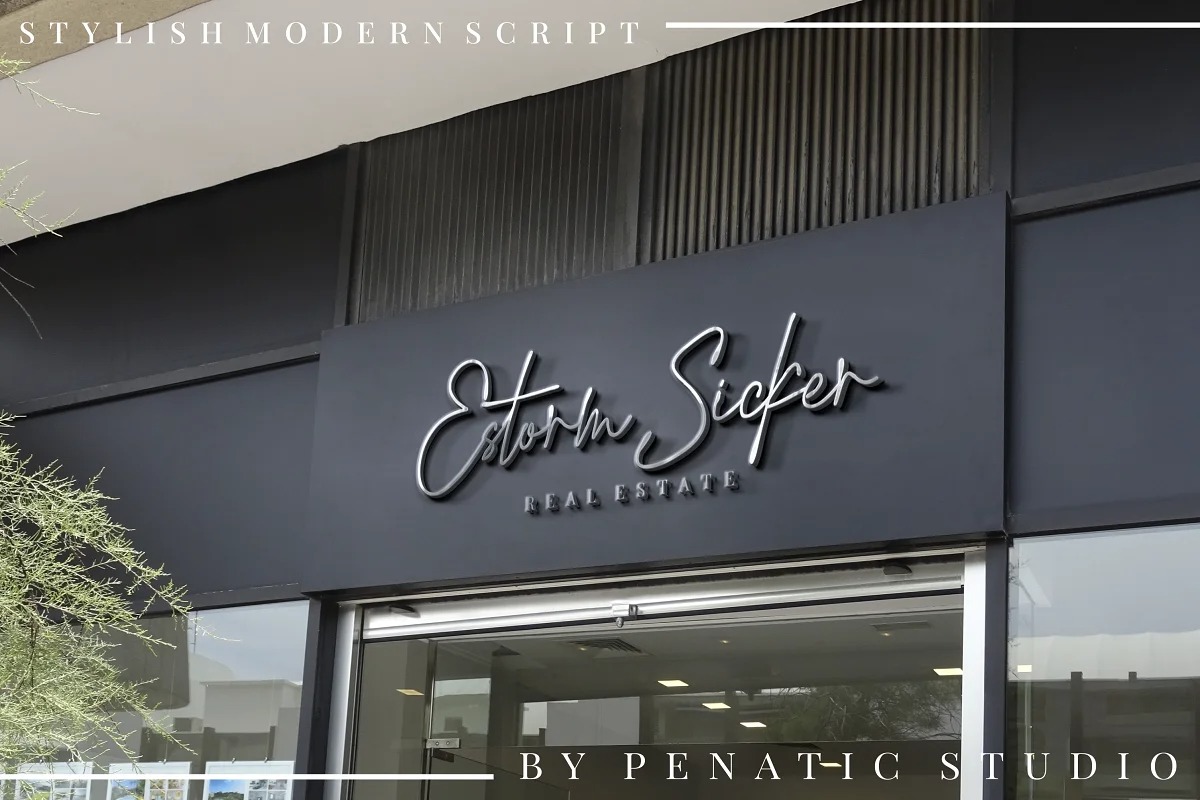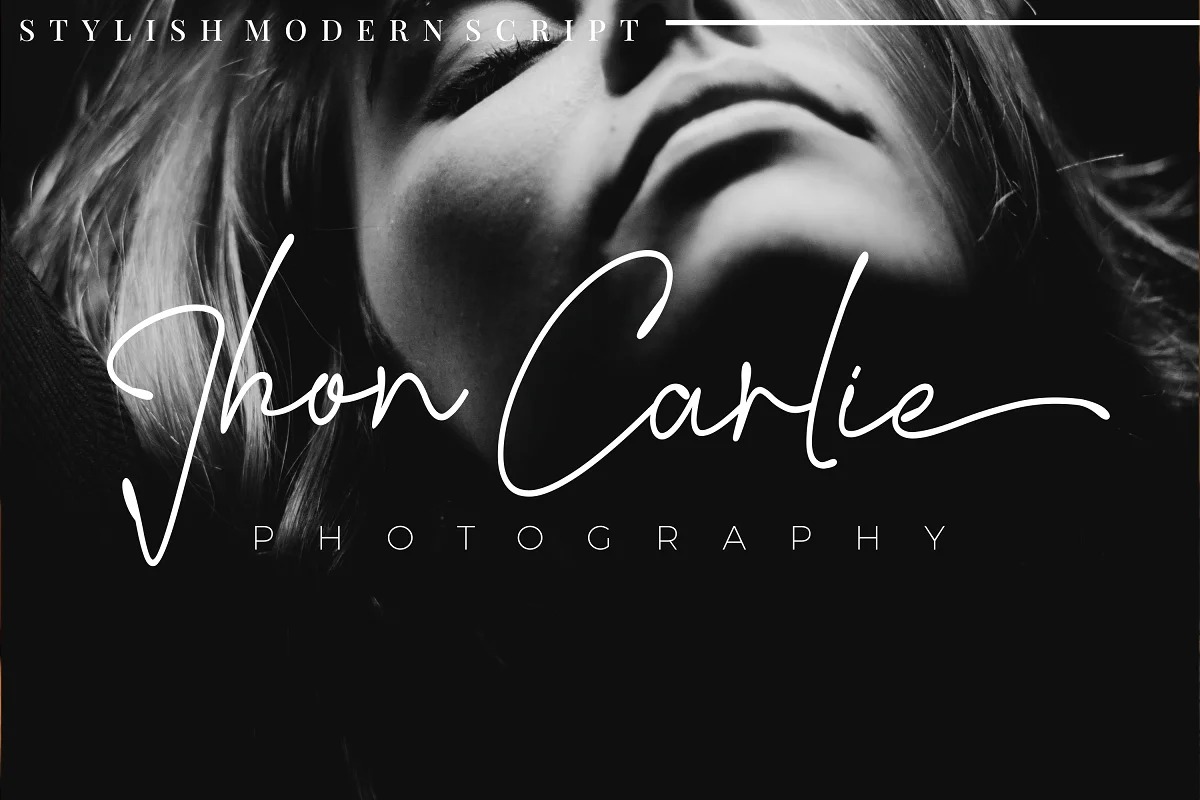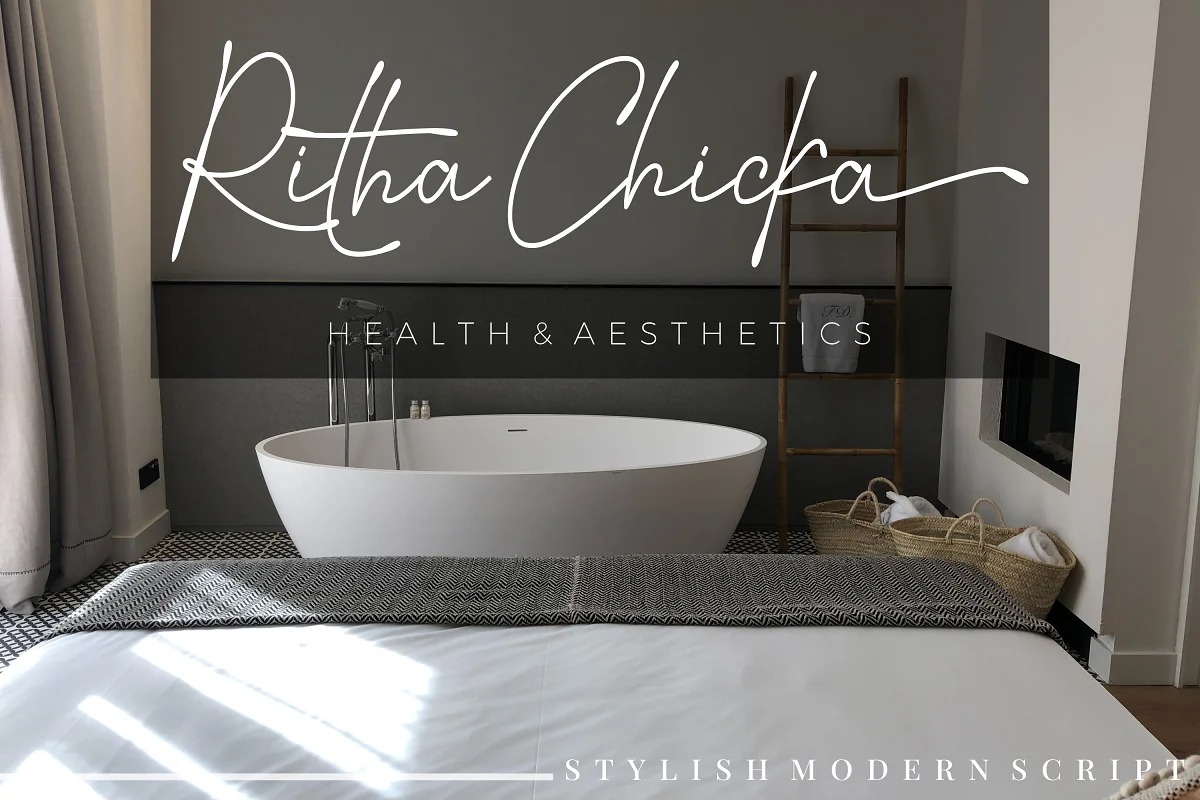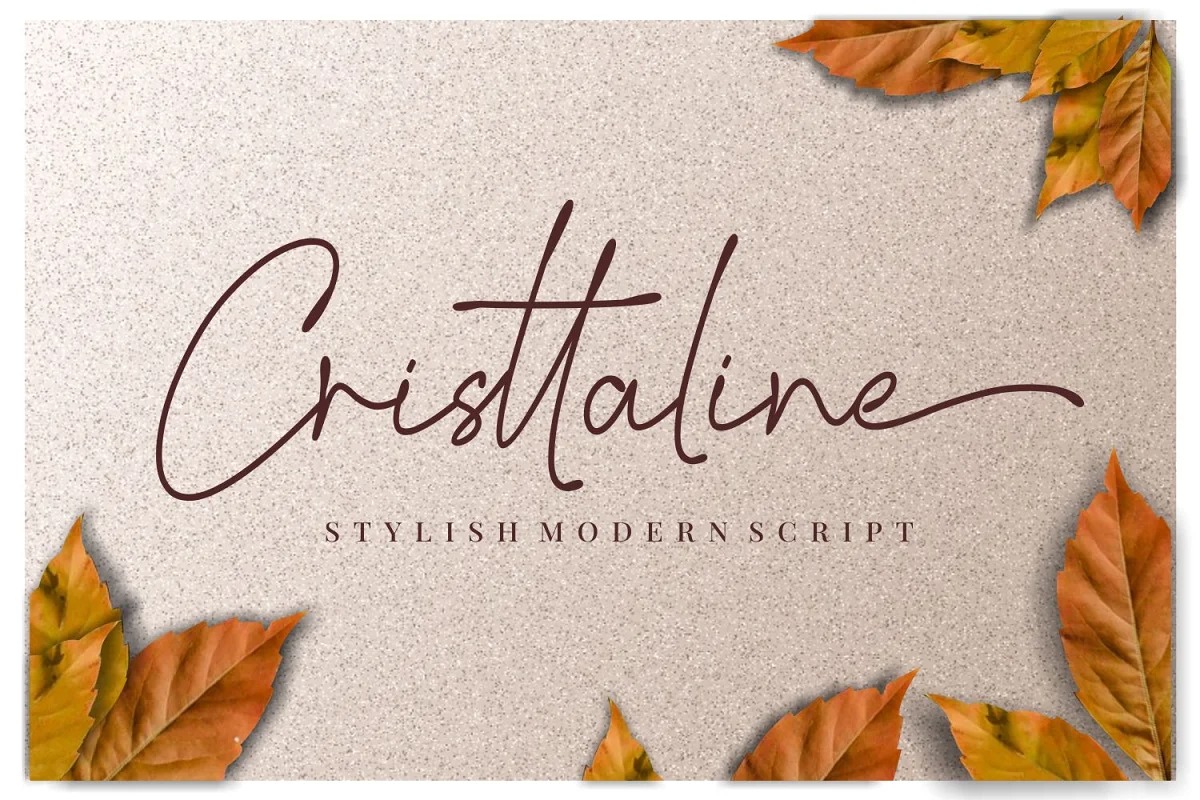
Cristtaline Handwritten Font
It’s a casual-chic modern hand-drawn script font inspired by cosmetic packaging, down-to-earth + feminine branding, planners & girly stationery. Made from font designer named Penatic Studio. Cristtaline is a monoline font that will look simple and beautiful to compose and use in your needs such as logo types, photography, wedding invitations, advertisements, signature business cards and others. because the design is very smooth and looks natural.